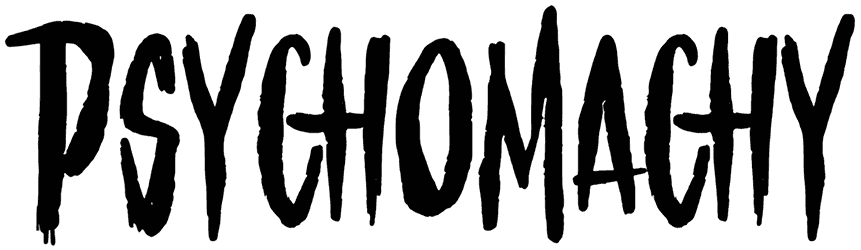
Psychomachy Font
Psychomachy is one of RB’s best options for designers tired of typical fonts. This brush font has letters with sharp edges that look like the handwriting of kidnappers and can create a frightening atmosphere in the space.
So, if you want to celebrate this year’s Halloween in a more eerie atmosphere, close your eyes to the lack of lowercase letters and some numbers, and add this horror font to the collection for designing posters and advertisements.